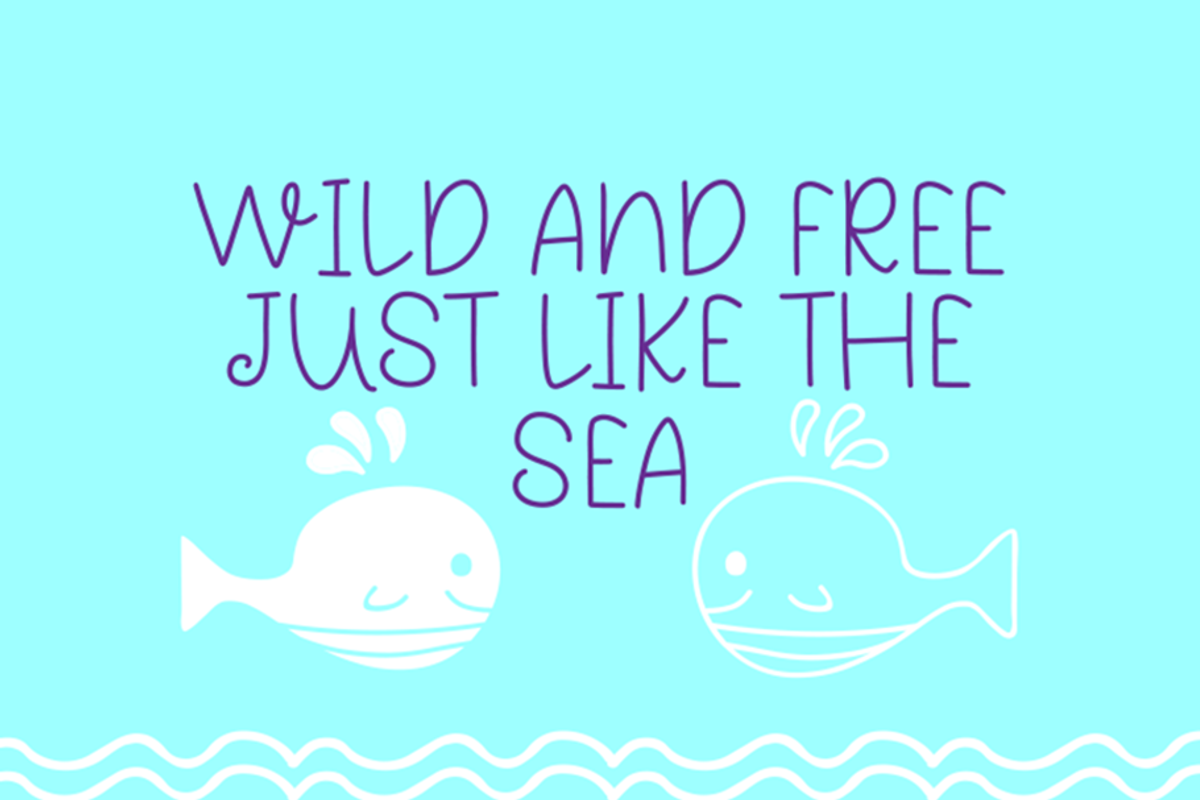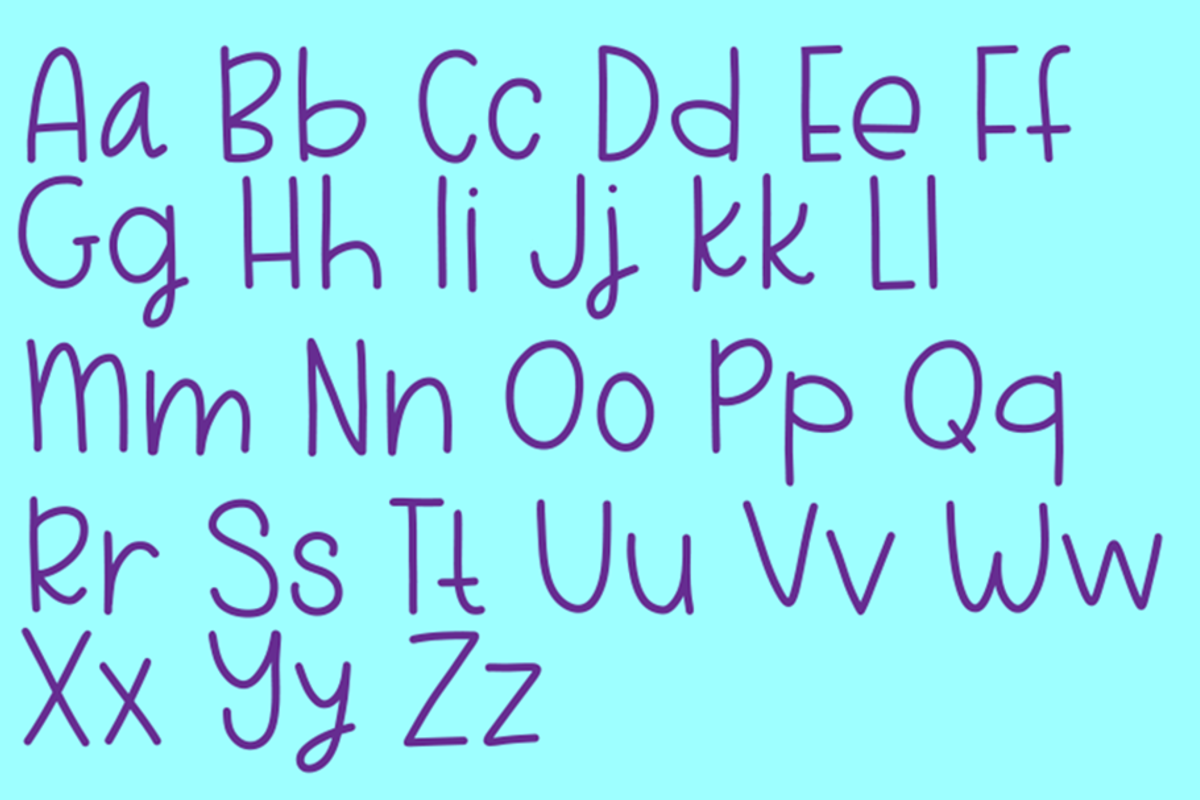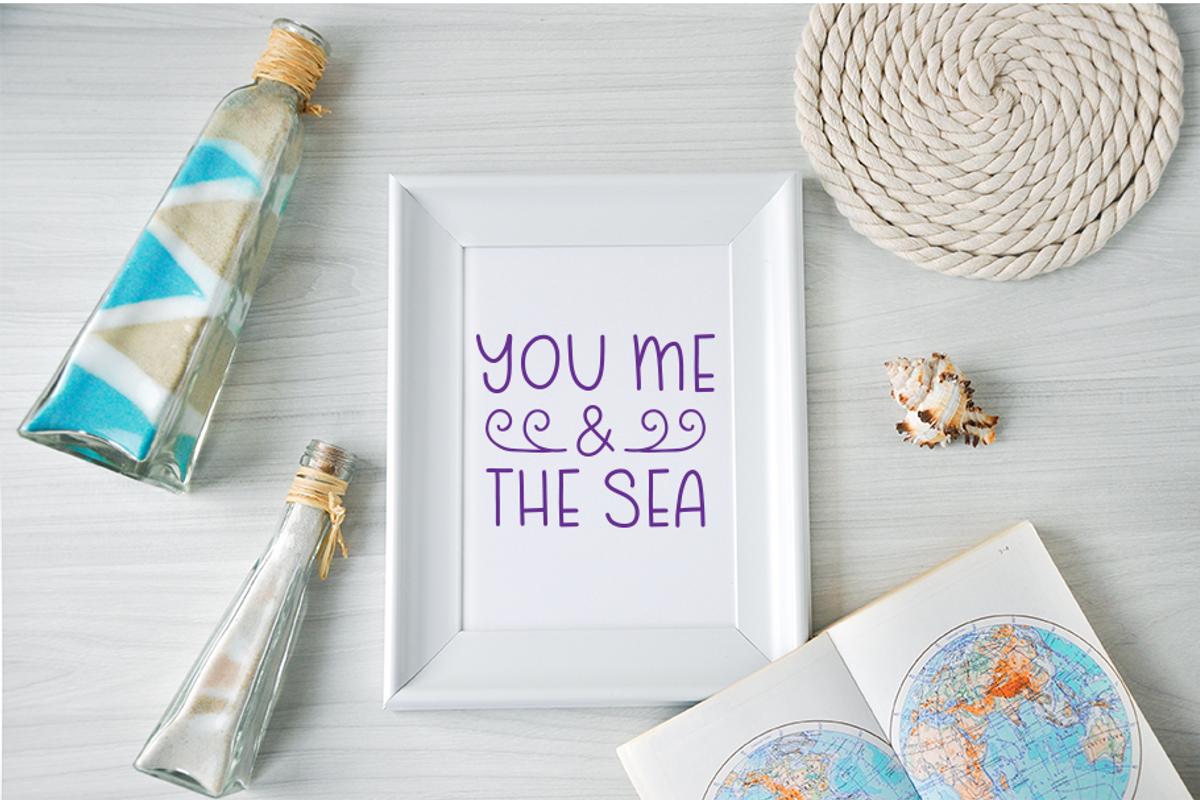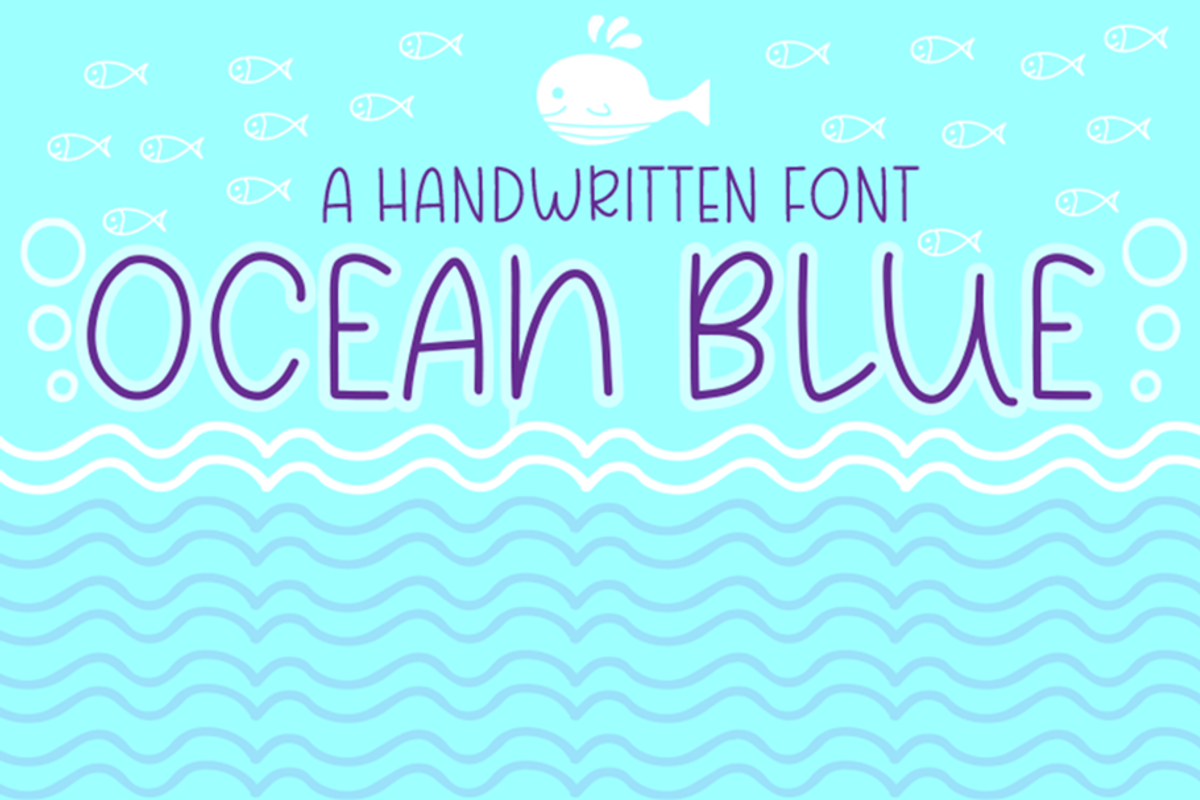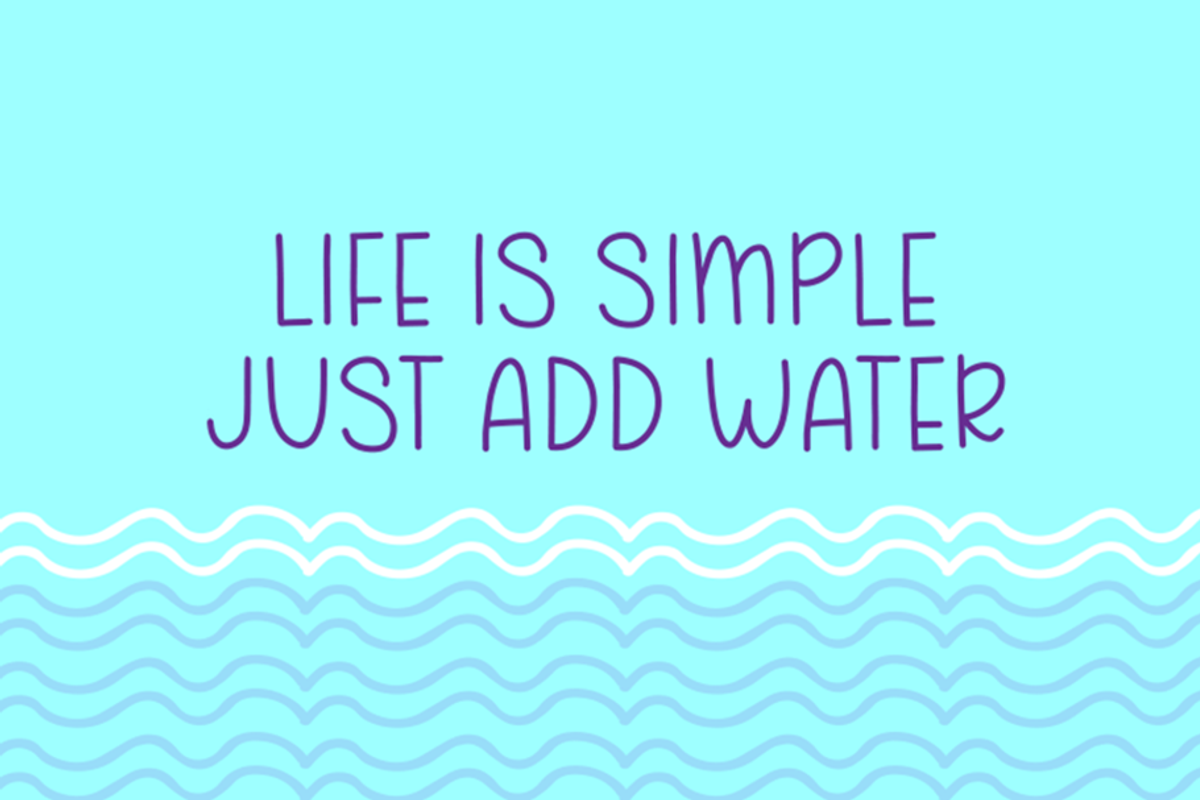
Ocean Blue
This lovely handwritten font is ideal for SVG quotes, branding, logos, packaging, surface pattern design, book covers, T- Shirts and much much more. It will look great by it's self or paired with other fonts. This font purchase is available in an OTF file, most popular characters are included.